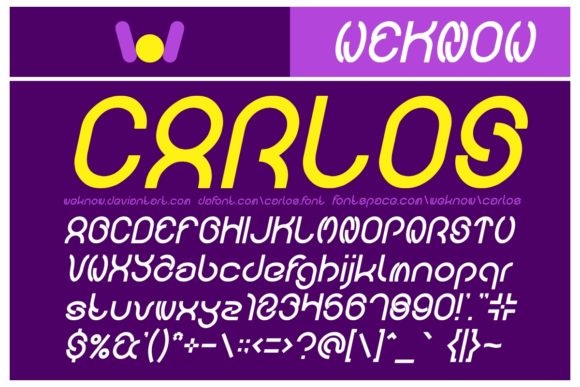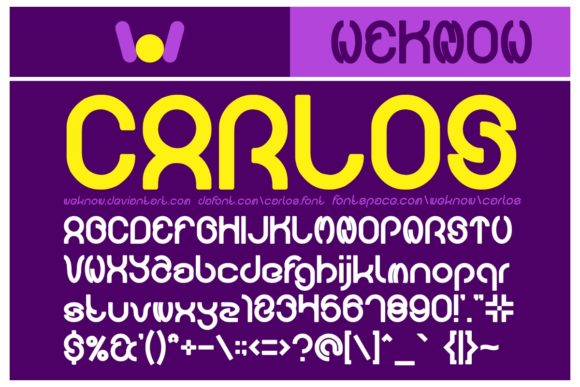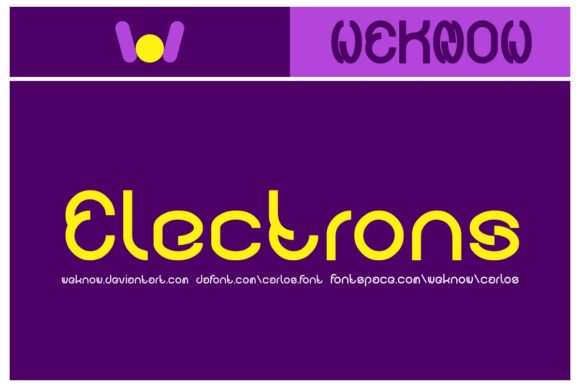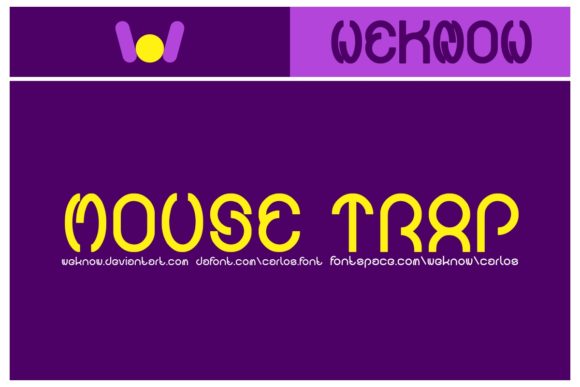
Discover the Whimsical World of Carlos Font: Unleashing Creativity and Fun
Are you tired of using the same old fonts for your creative projects? Look no further than Carlos Font, a vibrant and playful display font that’s sure to add a dash of excitement to your designs. As its name suggests, Carlos Font embodies fun, quirkiness, and authenticity, making it the perfect choice for crafters and designers looking to turn their ideas into true standouts.
The Story Behind Carlos Font
Carlos Font is more than just a font – it’s an experience. Its unique and enchanting design is sure to capture the attention of your audience and leave a lasting impression. Whether you’re working on a branding project, a marketing campaign, or a personal craft, Carlos Font is the perfect companion to help you bring your creative vision to life.
What Makes Carlos Font So Special?
So, what sets Carlos Font apart from other fonts out there? Here are just a few reasons why this font is a game-changer:
- Fun and Playful: Carlos Font is the epitome of fun and playfulness. Its quirky design is sure to add a touch of whimsy to your projects and make them stand out from the crowd.
- Authentic and Unique: With its one-of-a-kind design, Carlos Font is the perfect choice for designers and crafters looking to add a touch of authenticity to their work.
- Versatile: Whether you’re working on a digital project or a print project, Carlos Font is the perfect choice. Its clear and legible design makes it suitable for a wide range of applications.
How to Use Carlos Font in Your Projects
Using Carlos Font in your projects is easy. Here are a few tips to get you started:
- Pair it with Other Fonts: Carlos Font pairs perfectly with other fonts, making it easy to create visually appealing combinations.
- Use it for Headings and Titles: Carlos Font is perfect for headings and titles, where its playful design can really shine.
Who Can Benefit from Using Carlos Font?
Carlos Font is perfect for a wide range of designers and crafters, including:
- Graphic Designers: Whether you’re working on a branding project or a marketing campaign, Carlos Font is a great choice for adding a touch of personality to your designs.
- Crafters: If you’re a crafter looking to add a personal touch to your projects, Carlos Font is a great choice.
- Digital Designers: Carlos Font is perfect for digital designers looking to add a touch of whimsy to their designs.
Key Features of Carlos Font
- Unique and Enchanting Design: Carlos Font features a one-of-a-kind design that’s sure to capture the attention of your audience.
- Playful and Quirky: This font is the epitome of fun and playfulness, making it perfect for designers and crafters looking to add a touch of whimsy to their work.
- Authentic and Versatile: Carlos Font is perfect for a wide range of applications, from digital projects to print projects.